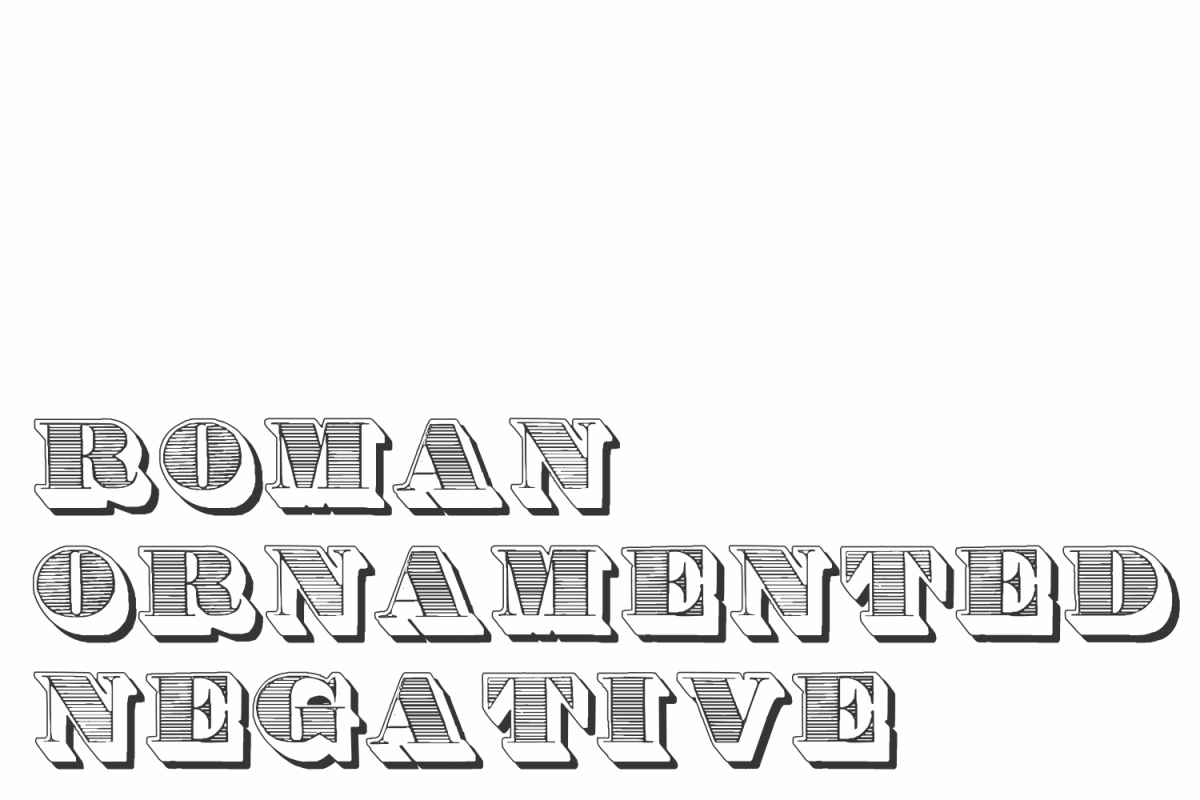
Roman Ornamented Negative
A decorative display font great for large header-like usage. Take a look too in the sister font : https://fontbundles.net/intellecta-design/32599-roman-ornamented